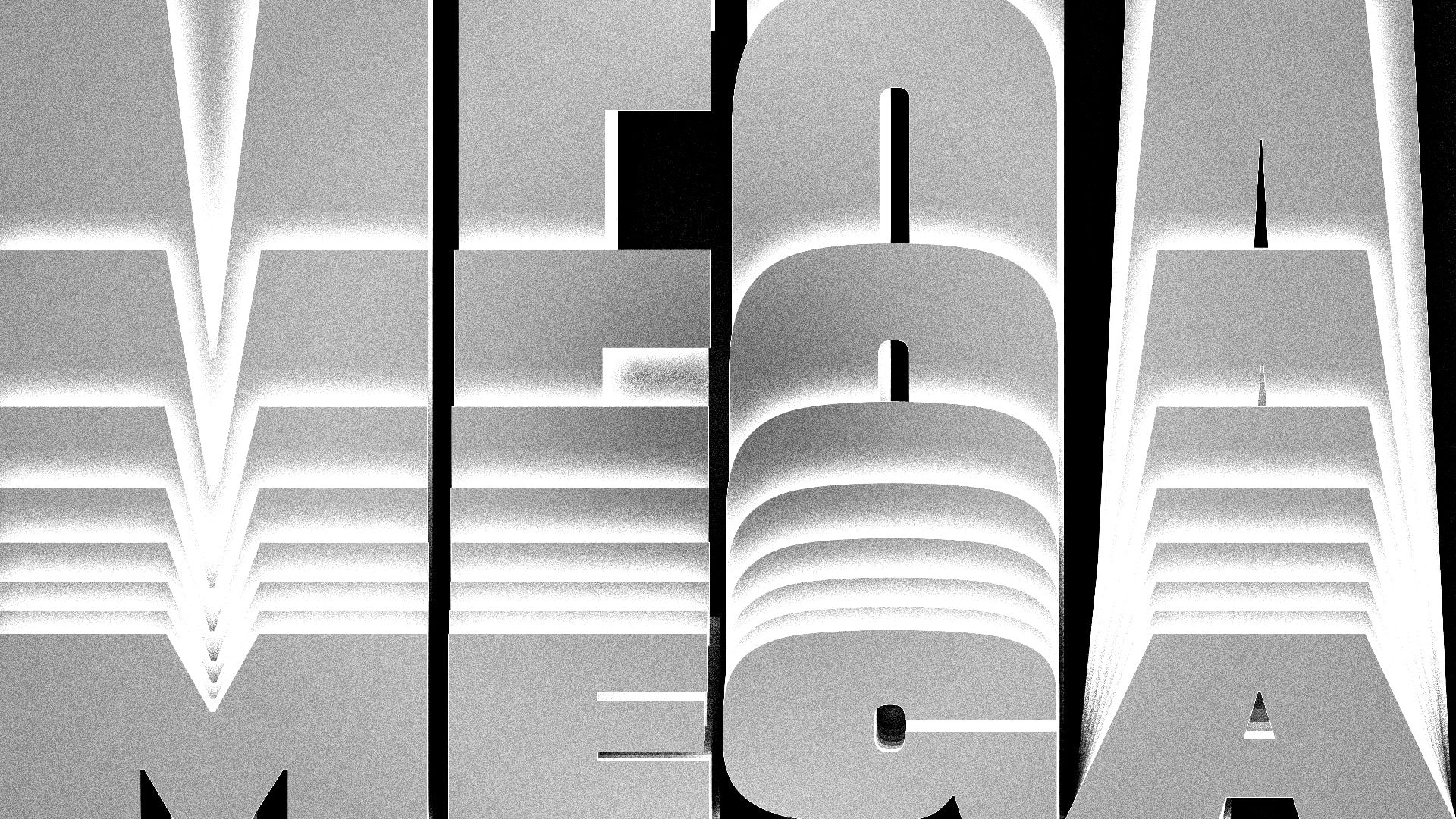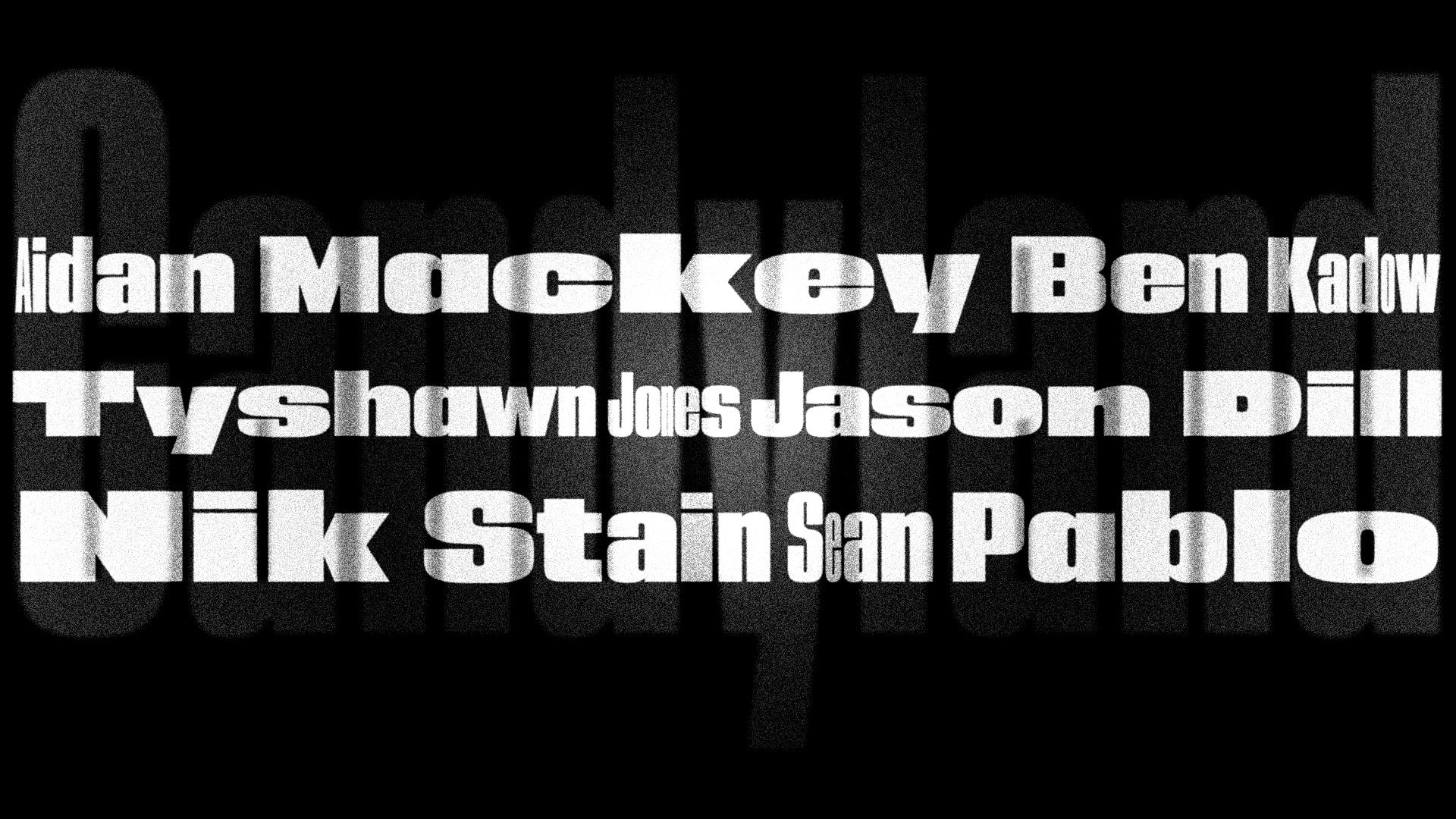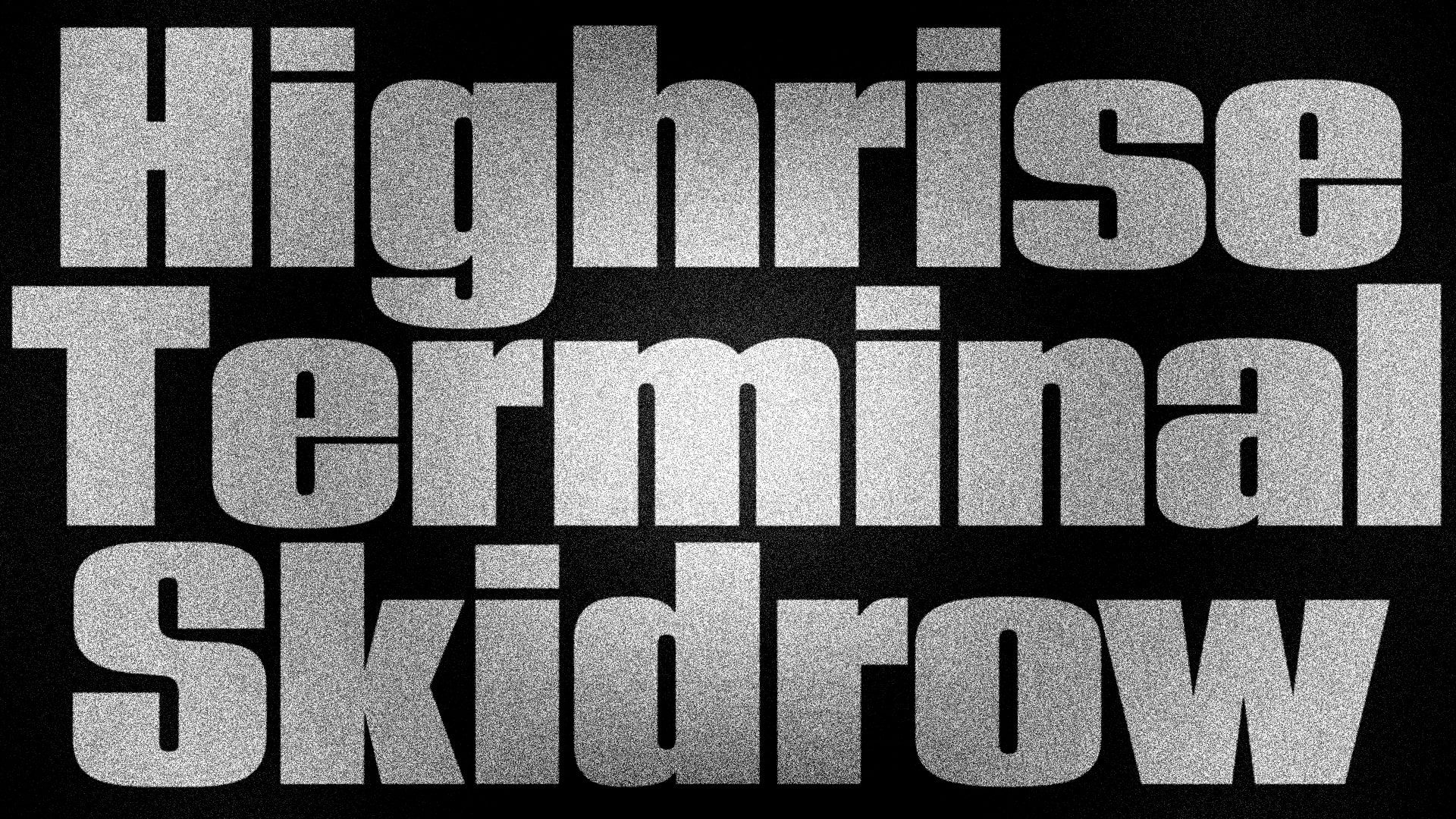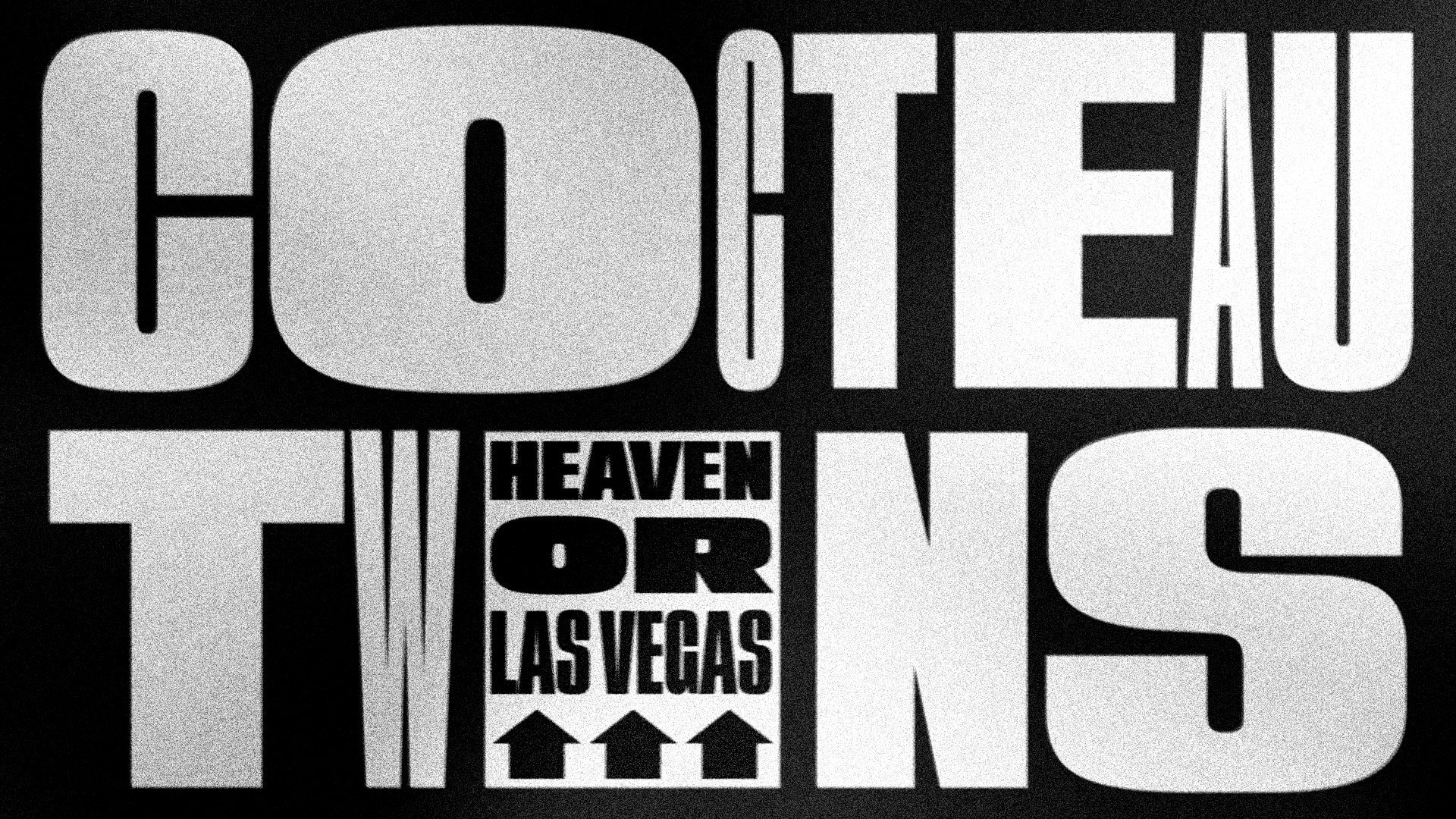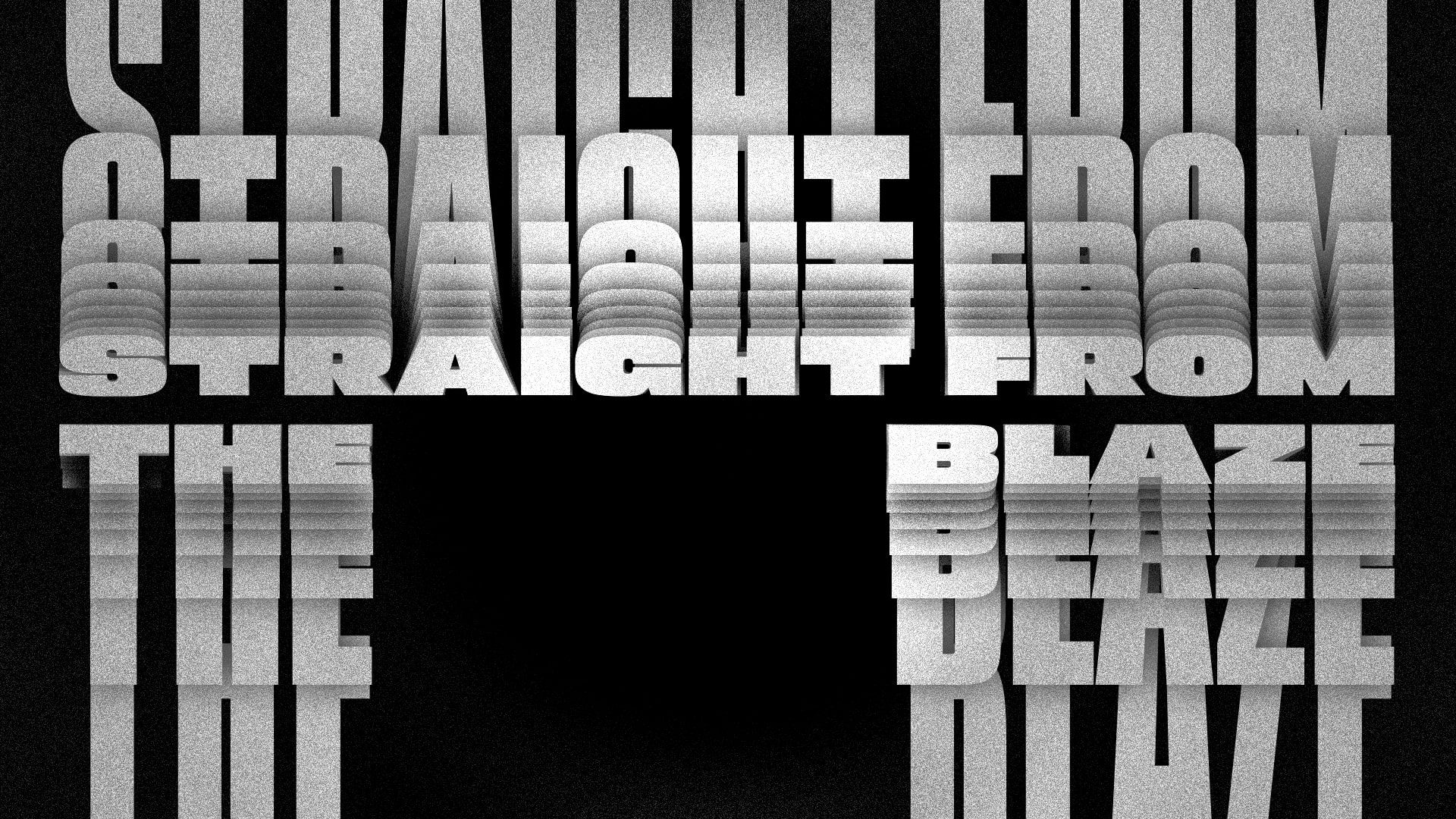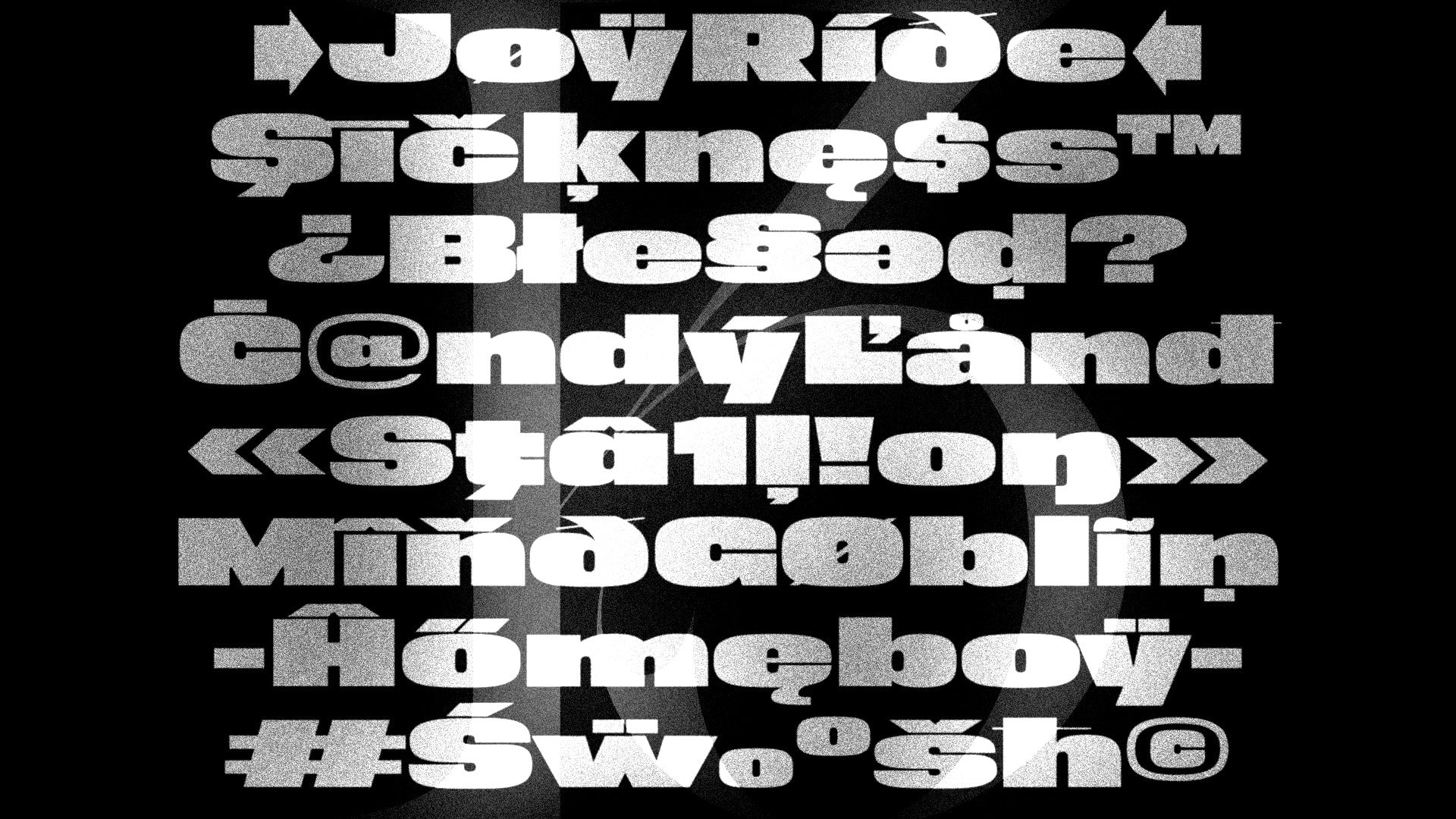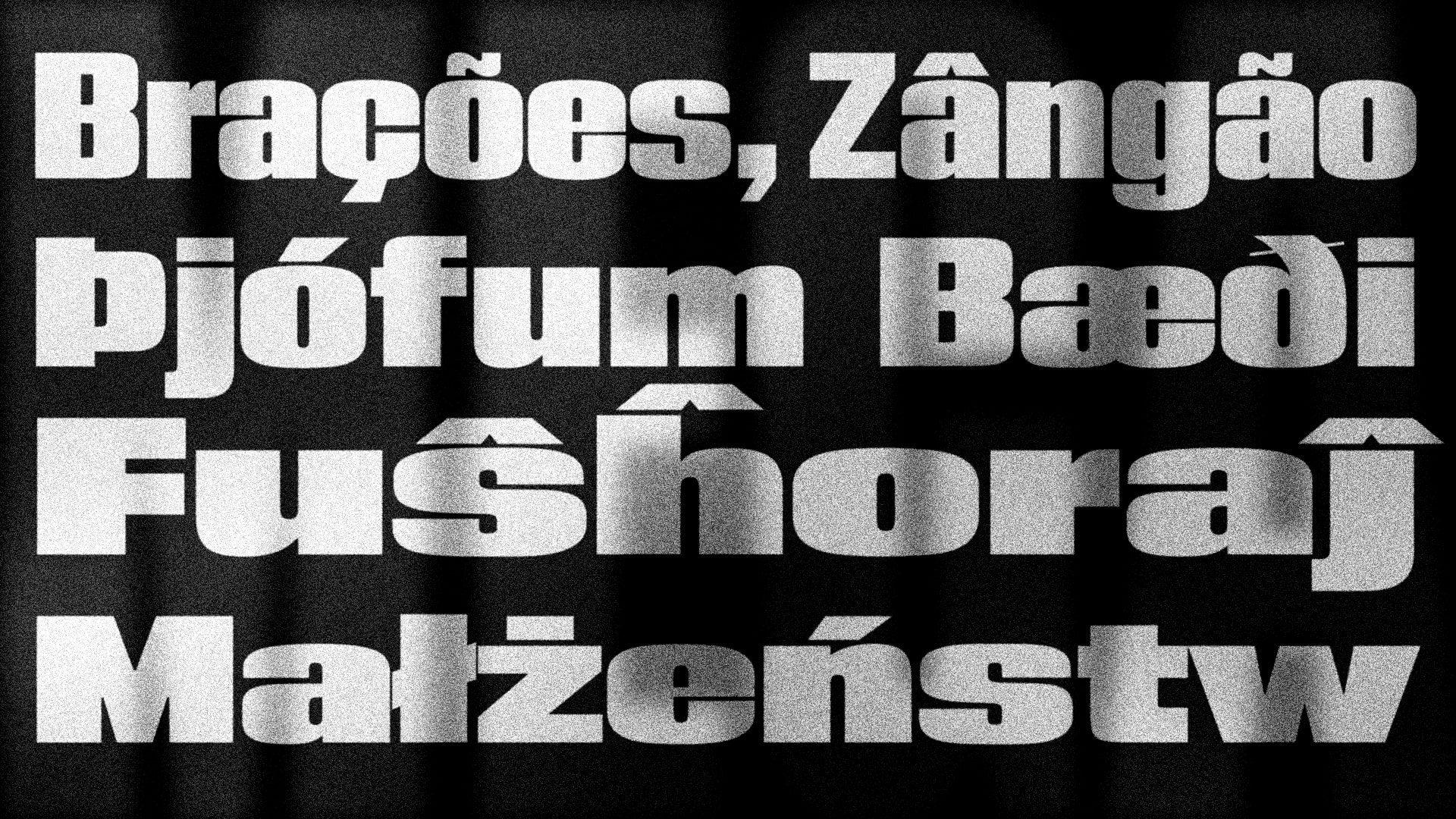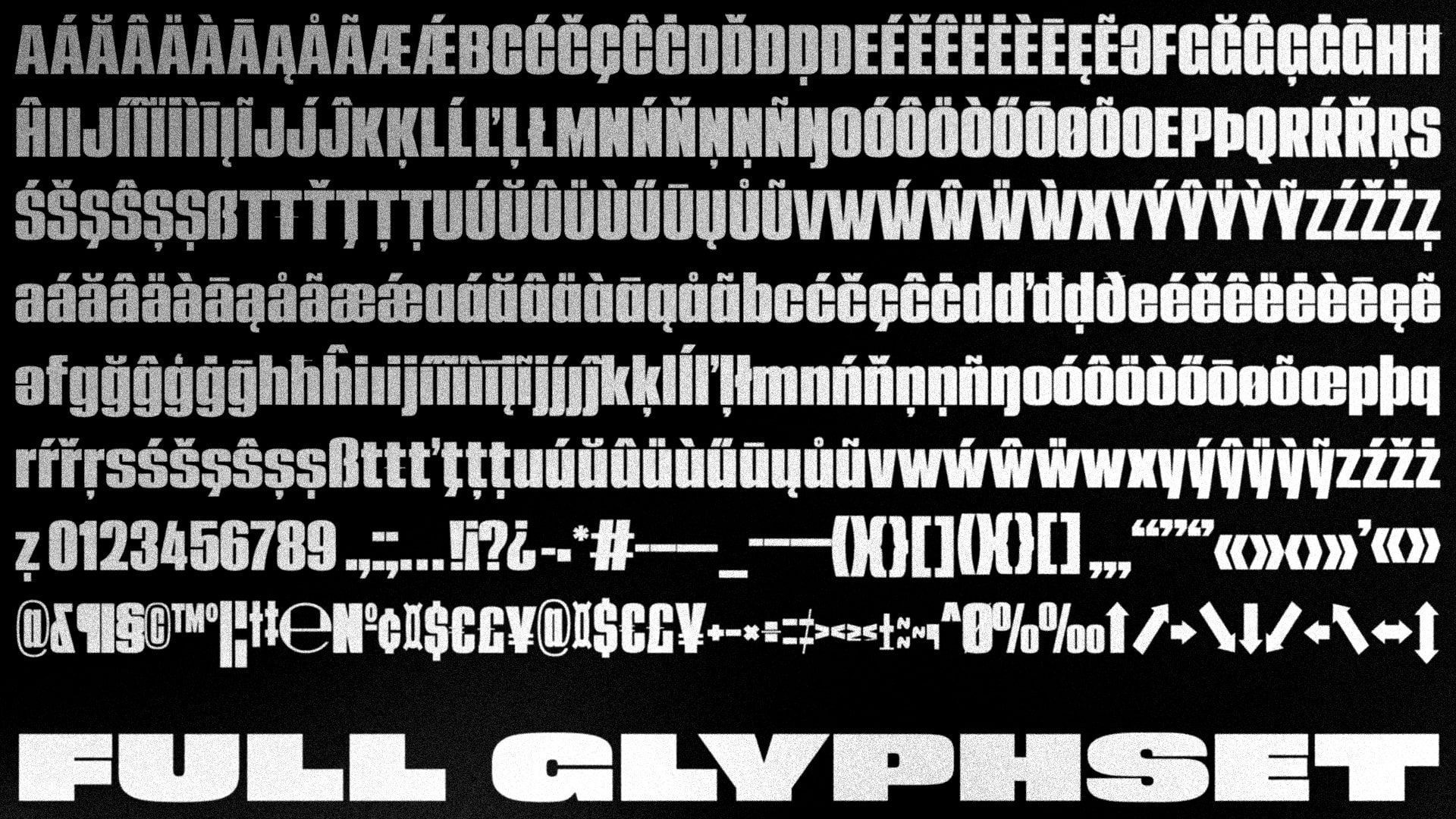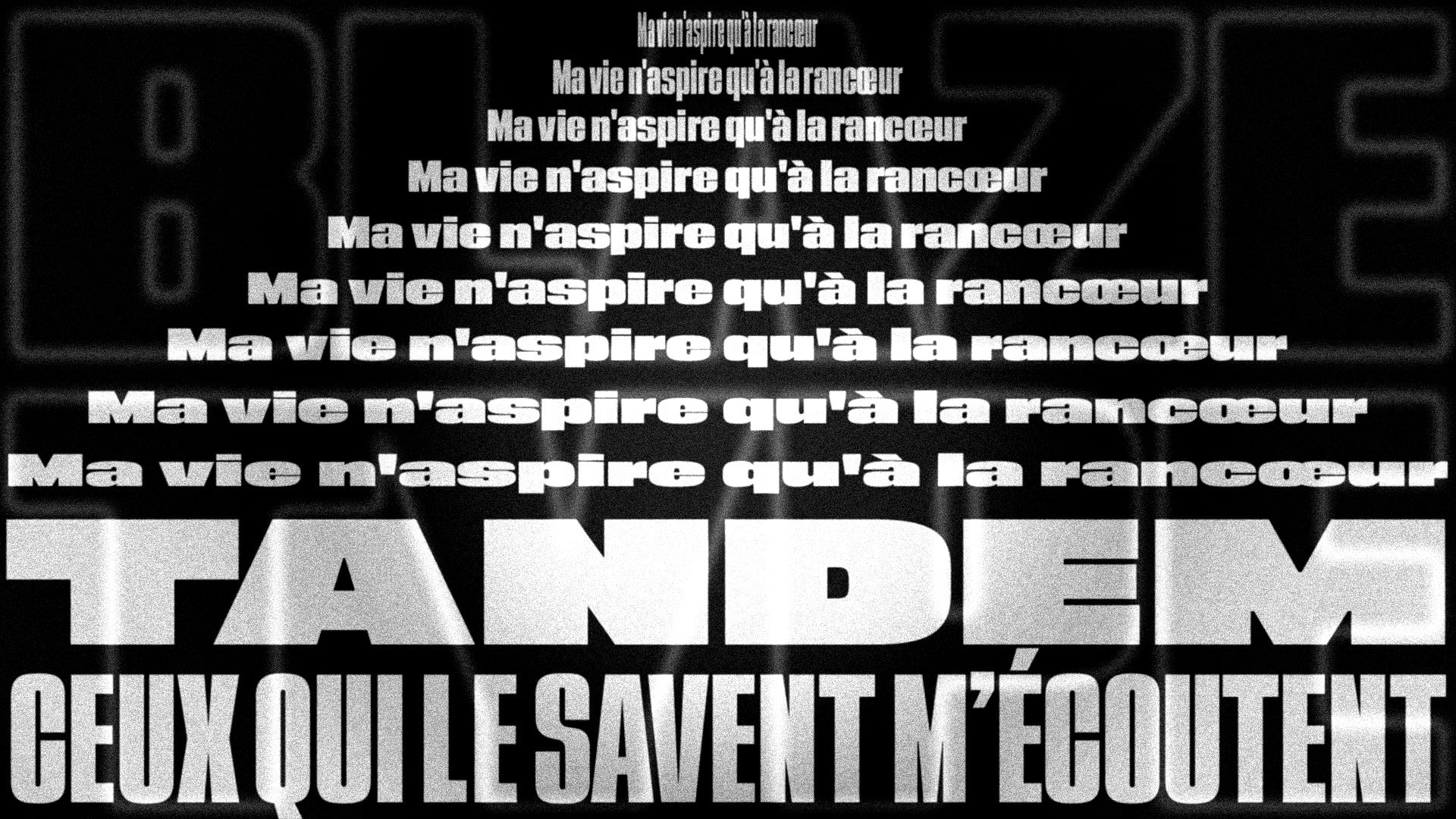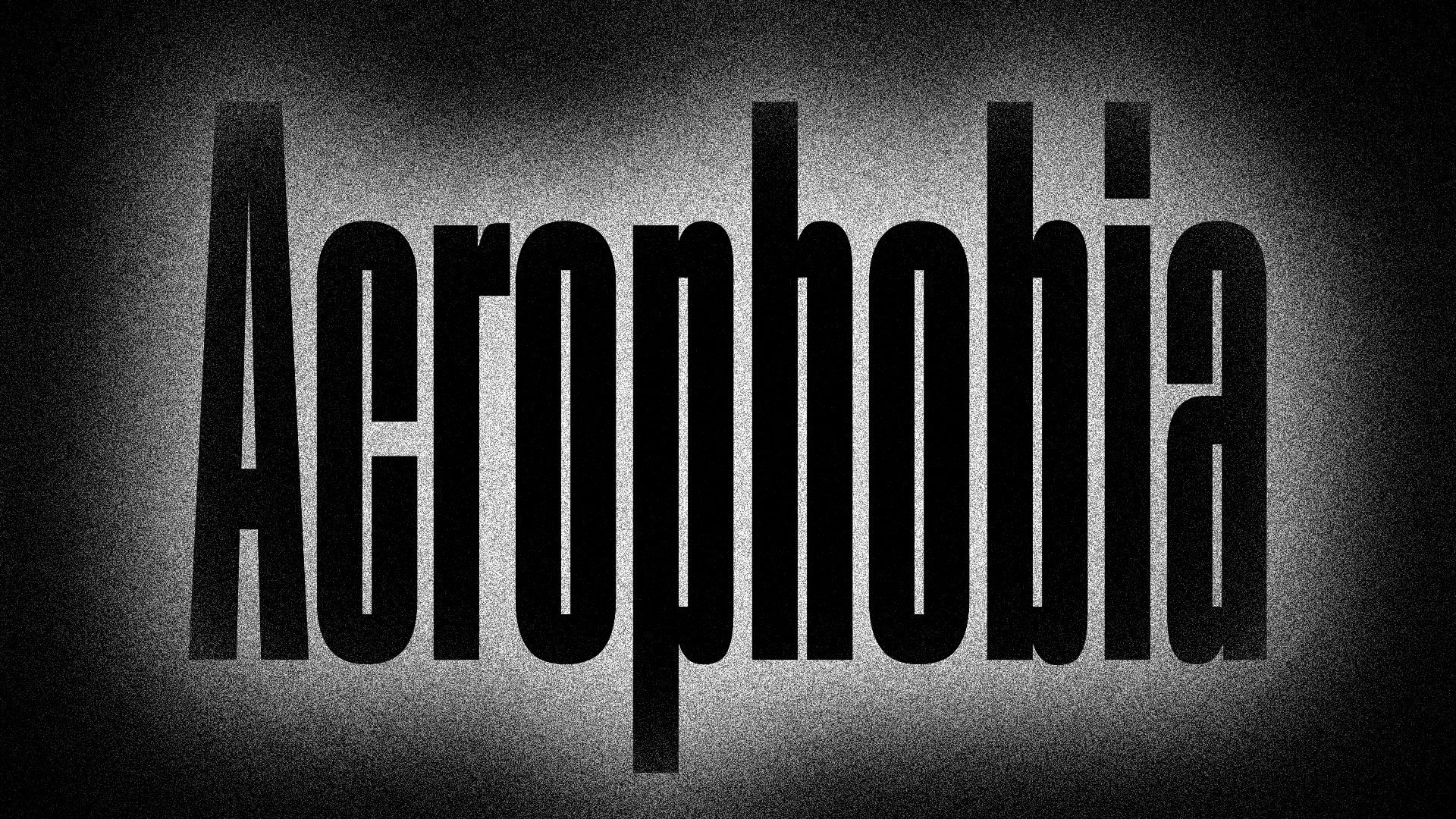
Mega
Mega Script, a neo-grotesque family inspired by the fascinating size relationship between the infinitely large and the infinitely small. This solid linear neo-grotesque typeface, whose shapes can be inspired by the wooden typefaces of historic posters such as Rob Roy Kelly's work, is specially designed for large formats to give you an imposing and captivating presence. Whether you want to create striking posters, impressive banners or powerful headlines, this display typeface will meet all your expectations. Mega Script is available in nine weights, giving you to ability to design project in small or large formats, from Nano (Ultra Condensed with rectangular counter shapes) to Tera (Ultra Black Extended with rounded counter shapes). Discover the power of the infinitely large and infinitely small at your fingertips with Mega Script.